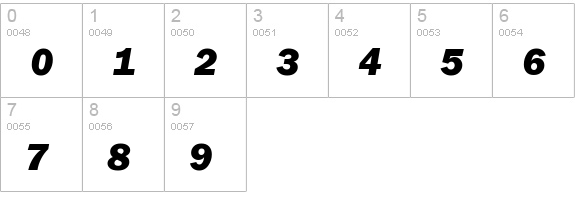
Franklin Gothic Heavy Italic is a heavy, high-impact, italic variant in the Franklin typeface family \xE2\x80\x94 well suited to high-impact headlines, posters, and display advertising.
Franklin Gothic Heavy Italic is a bold and striking typeface that exudes confidence and authority. Its strong slanted characters command attention and make a powerful statement in any design application. The italicized style adds a touch of sophistication and elegance, making it ideal for headlines, logos, and branding materials. This versatile font is perfect for conveying a sense of boldness and modernity in various projects, from posters to packaging to websites. Its clean lines and distinctive curves ensure readability and impact, making it a popular choice among designers and creatives. Best of all, Franklin Gothic Heavy Italic is available for free download at FontsMarket.com, making it easily accessible for anyone looking to elevate their designs with a touch of bold elegance. Don't miss out on this opportunity to add a touch of sophistication and power to your projects with this stunning font.